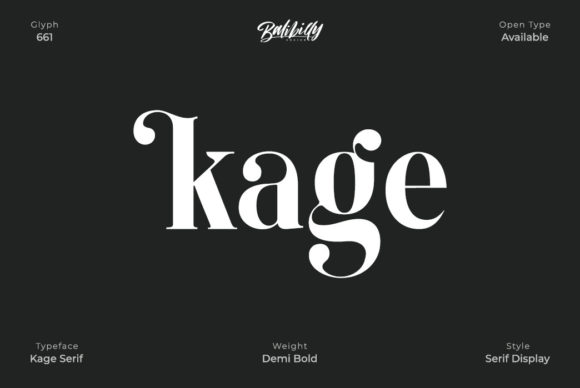
In a world where aesthetics and elegance reign supreme, allow us to introduce you to Kage - Demi Bold, the font that will redefine your design endeavors. This exquisite serif font exudes an aura of timeless sophistication, inviting you to explore the realm of creativity with newfound inspiration.
Indulge in the intricate details and graceful curves that adorn each character, crafted with the utmost care by Balibilly Design. Kage - Demi Bold possesses an inherent versatility, effortlessly complementing an array of design projects. Its presence enhances wedding invitations, thank-you cards, logos, and greeting cards, imbuing them with a touch of timeless beauty.
Immerse yourself in the boundless possibilities that await with Kage - Demi Bold. Its PUA-encoded nature grants you access to a treasure trove of glyphs and swashes, empowering you to unleash your creativity and leave an indelible mark on the world of design. Experience the joy of crafting personalized designs that resonate with your unique style and leave a lasting impression on all who behold them.
Kage - Demi Bold is more than just a font; it's a gateway to a world of elegance and refinement. Its exquisite charm will elevate your designs to new heights, captivating audiences with its timeless appeal. Embrace the allure of Kage - Demi Bold and embark on a journey of artistic expression that knows no bounds.